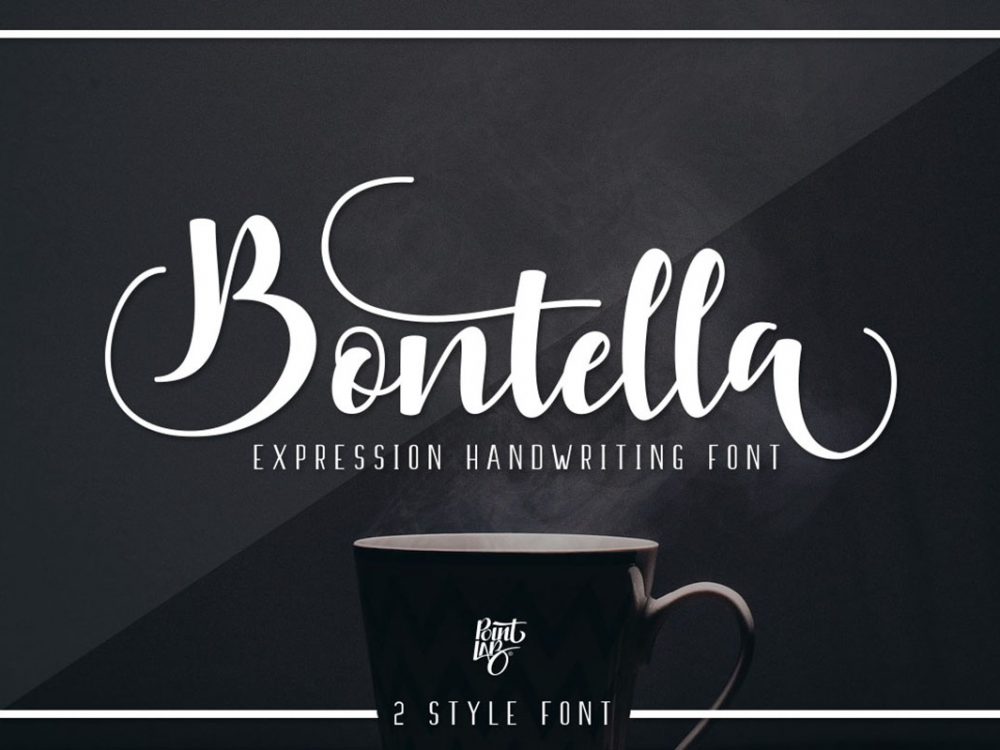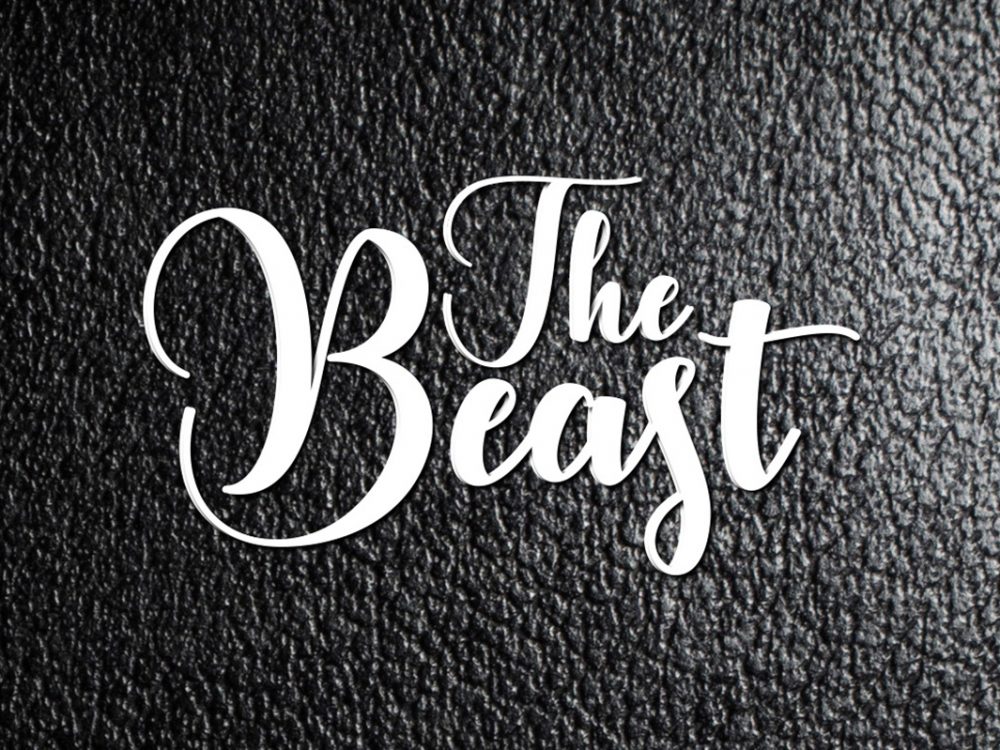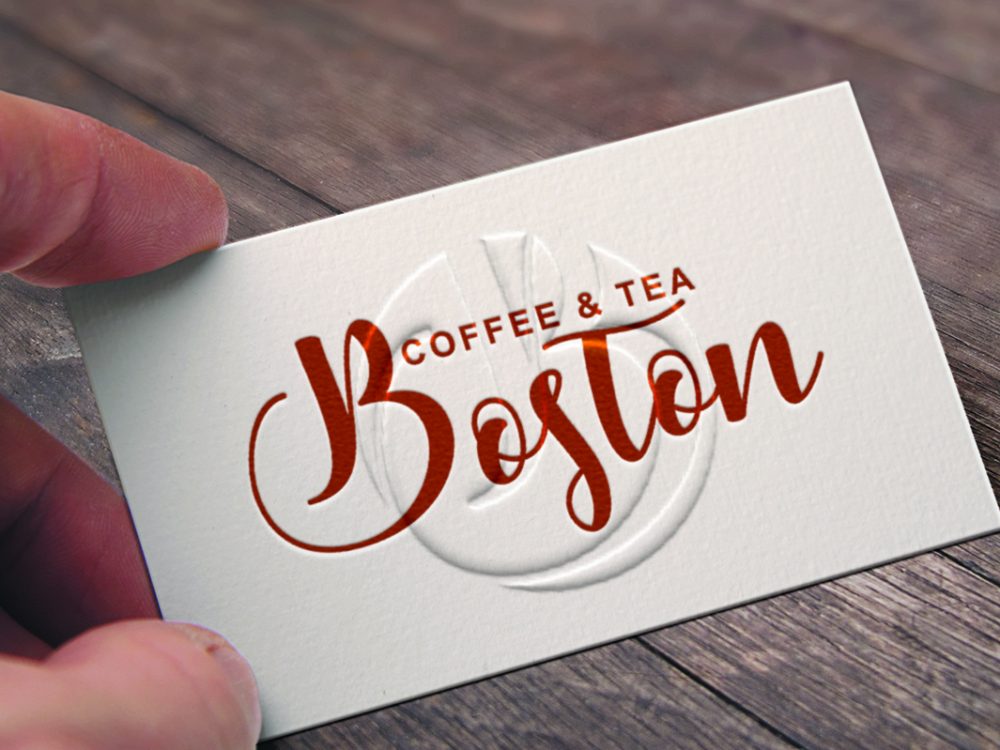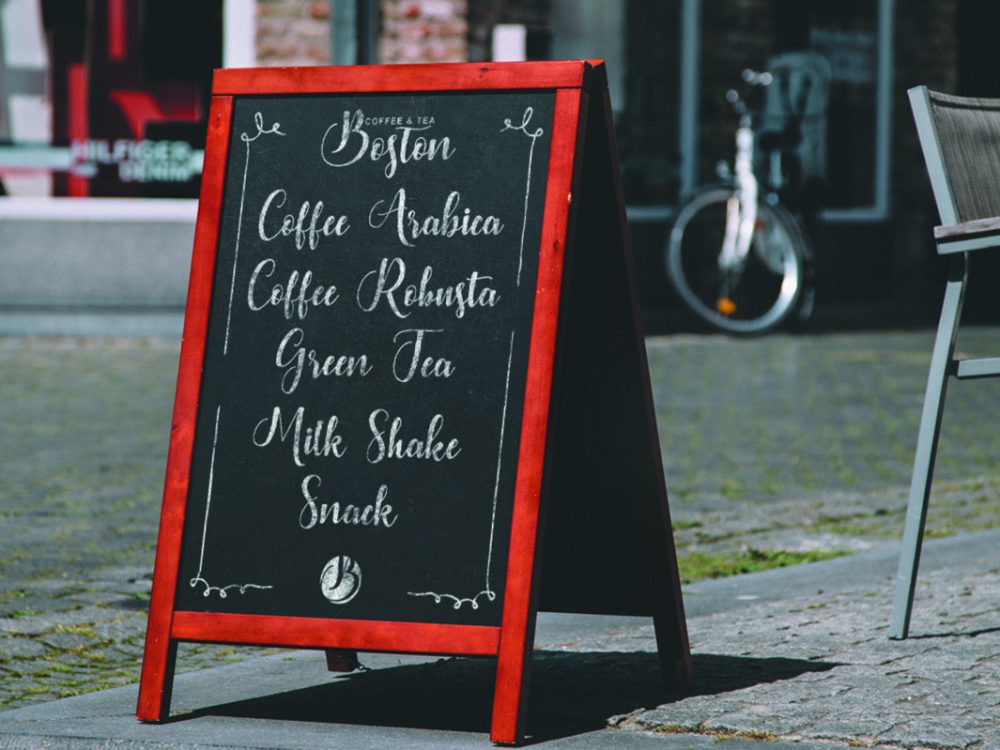
Bontella Free Font
Bontella Free Font is a scripted calligraphic handwritten font with a modern style. This one has decorative characters, and a dancing baseline and is perfect for a variety of design projects. You can use this font to create memorable posters, wedding invitations, cards, branding, flyers, and more. Improve the quality and increase the popularity of your design projects by using this font. If you like it don’t forget to check out the full version.